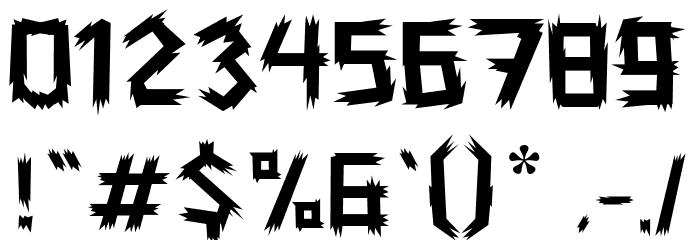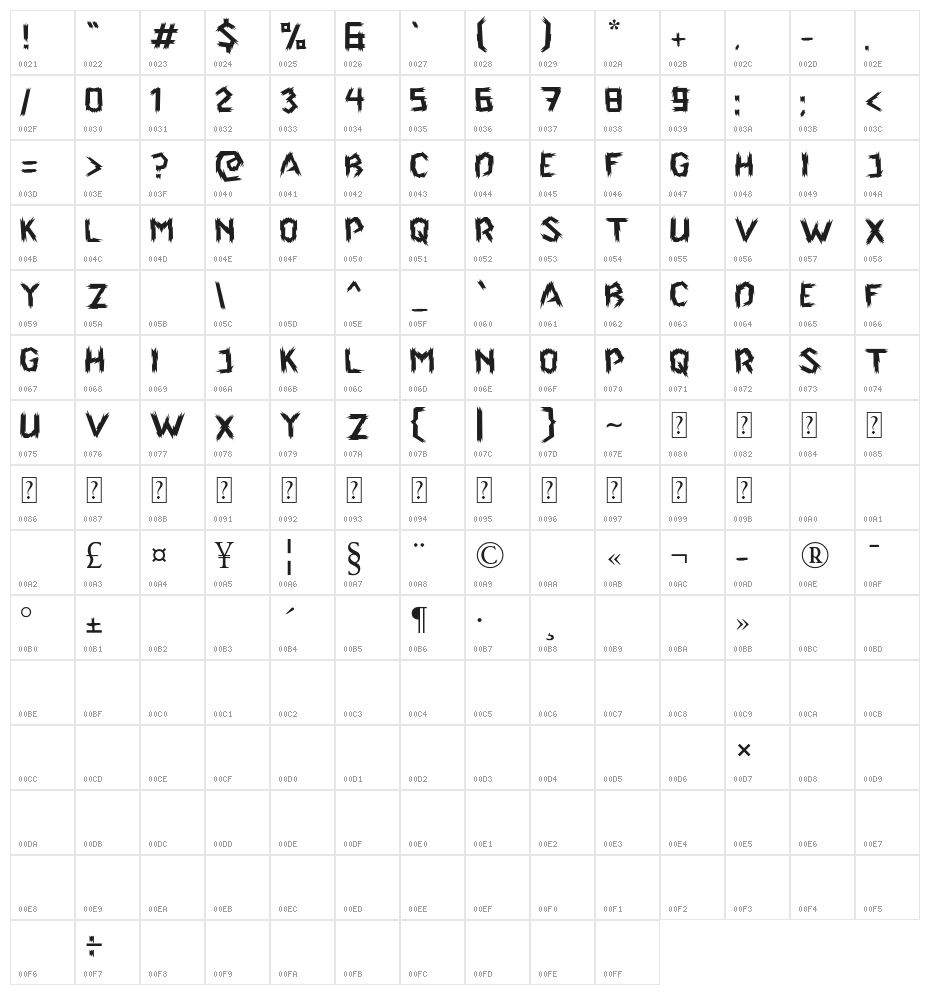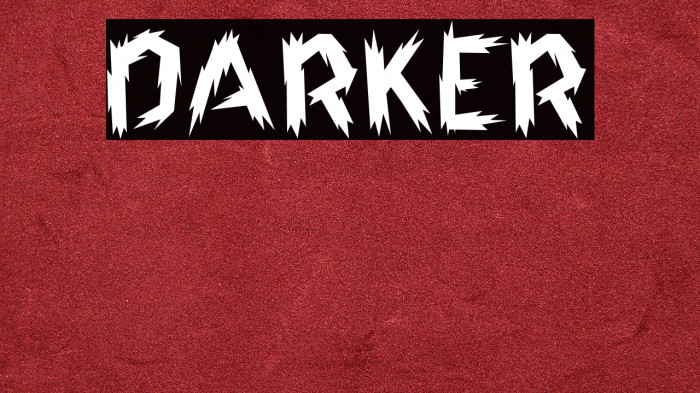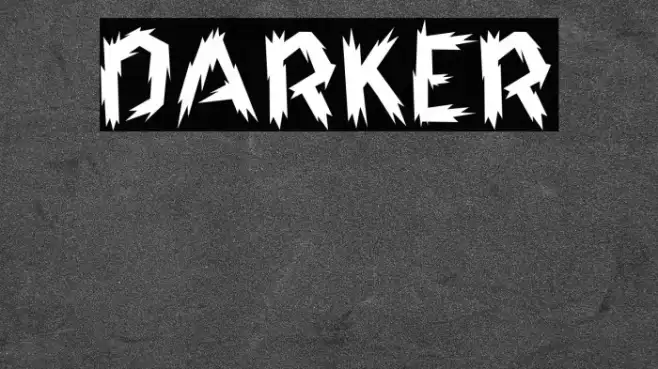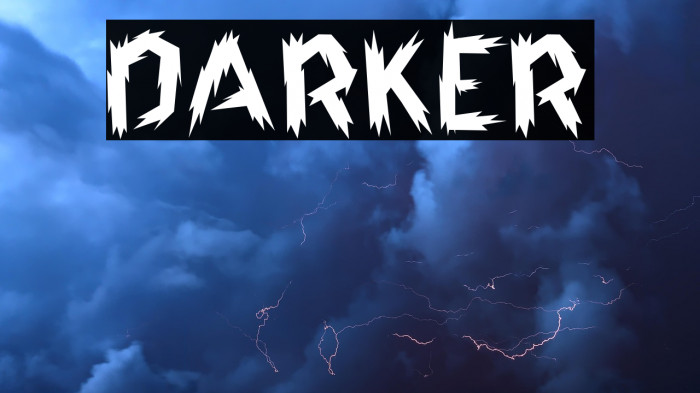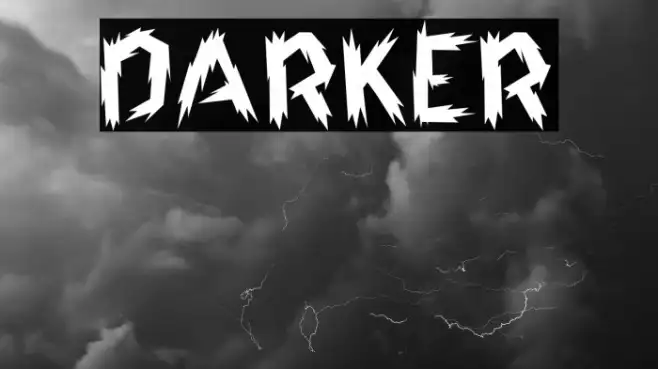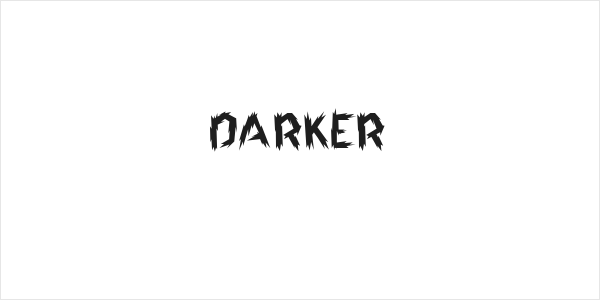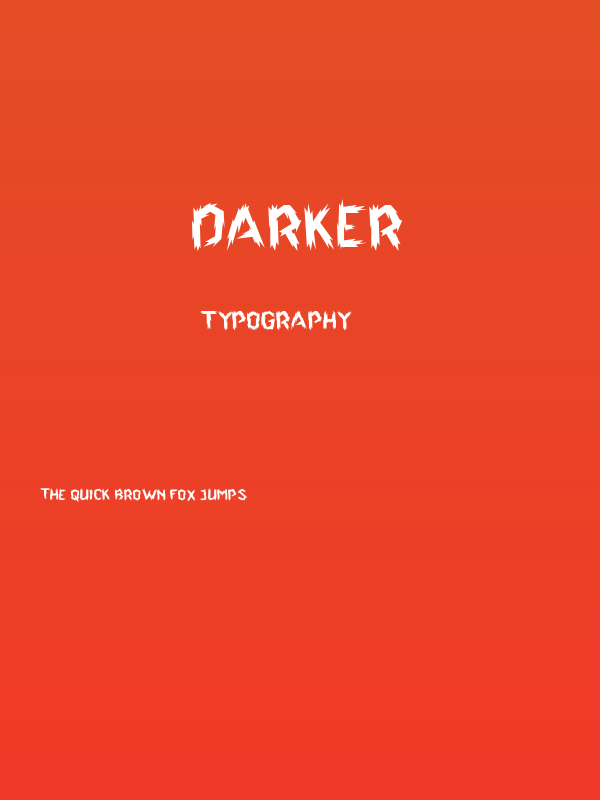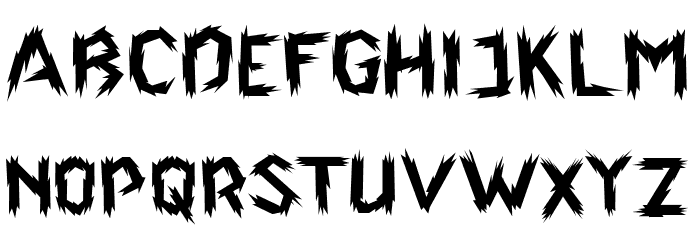
DARKER Font
This font features a jagged, edgy design that gives it a dynamic and aggressive appearance. Each character is crafted with sharp, angular strokes that create a sense of movement and intensity. The bold, irregular edges make it stand out, capturing attention with its unique style. This font is perfect for projects that require a strong, impactful visual element. The uppercase and lowercase letters maintain a consistent design, while the numbers and special characters complement the overall aesthetic. Its distinctive look is ideal for creating a bold statement in any design.
| Proposed Projects | Ideal for music album covers, event posters, video game titles, and edgy branding. |